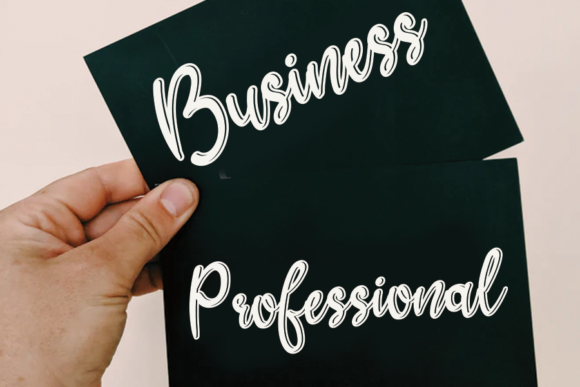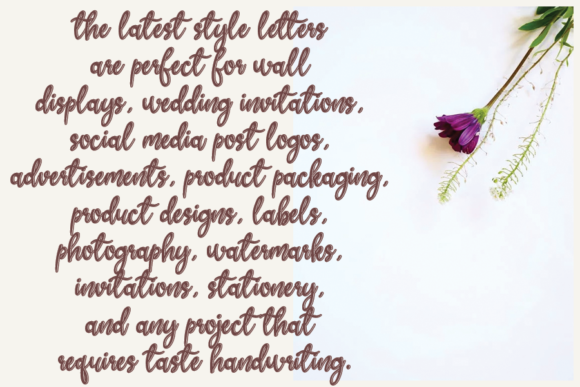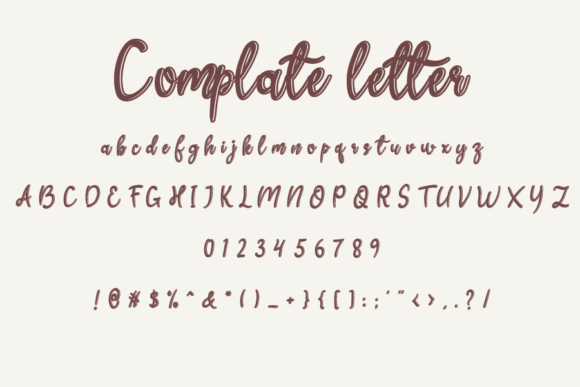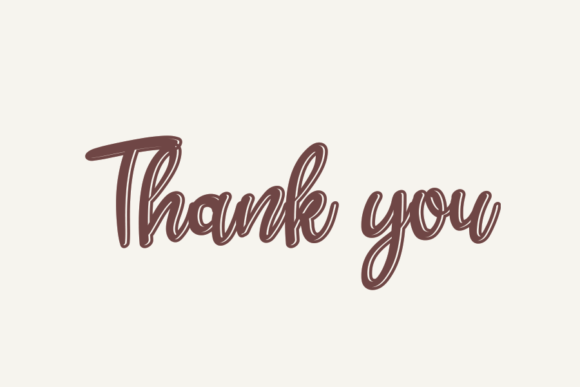
Butter Sweet Font
About Butter Sweet Font
Butter Sweet sounds like a beautiful and flowing handwritten font that exudes elegance and charm. Its distinct and timeless style makes it a versatile choice for a wide range of design projects. Here are some creative ways you can use Butter Sweet to bring a touch of elegance and beauty to your favorite projects:
1. Wedding Invitations: Design exquisite and romantic wedding invitations that capture the essence of love and celebration using Butter Sweet’s elegant touch.
2. Greeting Cards: Create heartfelt and personalized greeting cards for various occasions, conveying warm wishes and emotions with Butter Sweet’s flowing script.
3. Branding and Logo Design: Use Butter Sweet to add a touch of sophistication and grace to your brand identity, ideal for businesses seeking a refined and elegant look.
4. Social Media Graphics: Craft eye-catching and captivating social media graphics, such as quotes, announcements, and promotions, using Butter Sweet to create a classy and elegant impression.
5. Product Packaging: Incorporate Butter Sweet into product packaging design to give your brand a luxurious and sophisticated appeal, perfect for premium and high-end products.
6. Art Prints: Design inspirational art prints with meaningful quotes or elegant illustrations, using Butter Sweet to add an element of elegance to your artwork.
7. Stationery: Create elegant and stylish stationery sets, including notepads, letterheads, and envelopes, featuring Butter Sweet’s flowing script for a timeless touch.
8. Blog Graphics: Use Butter Sweet in blog post graphics, featured images, and banners to add a touch of elegance and sophistication to your blog’s visual identity.
9. Book Covers: Design book covers for romance novels, poetry collections, or self-help books, using Butter Sweet to evoke a sense of grace and beauty.
10. Event Invitations: Craft sophisticated and chic event invitations for special occasions, infusing Butter Sweet’s elegant touch into the design.
11. Quote Artwork: Turn inspiring quotes into elegant artwork using Butter Sweet, creating a sense of timeless beauty and grace.
12. Packaging Labels: Design refined and elegant labels for premium products, incorporating Butter Sweet to add a touch of sophistication.
13. DIY Crafts: Use Butter Sweet for various DIY craft projects, such as custom gift tags, scrapbooking, and handmade gifts, to add an element of elegance and grace.
14. Website Headings: Incorporate Butter Sweet in website headings and banners to create an elegant and welcoming visual experience for visitors.
15. Typography Art: Create custom typography art using Butter Sweet’s flowing script, experimenting with different layouts and compositions for an elegant outcome.
16. Magazine Covers: Design chic and elegant magazine covers using Butter Sweet, making a strong impression on readers with its timeless beauty.
17. Home Decor: Create refined and tasteful home decor items, such as framed quotes or decorative signs, using Butter Sweet to add an elegant touch to your space.
18. Party Invitations: Craft elegant and stylish party invitations for sophisticated events, infusing Butter Sweet’s flowing script for a touch of grace.
19. Handmade Crafts: Personalize handmade crafts and DIY projects with Butter Sweet, enhancing their elegance and sophistication.
20. Personal Projects: Use Butter Sweet for any creative personal projects that require a touch of elegance and beauty.
In conclusion, Butter Sweet’s flowing handwritten style and elegant touch make it a perfect choice for a variety of design projects. Embrace its distinct and timeless beauty to create spectacular and refined designs that leave a lasting impression. Whether you’re designing for weddings, branding, social media, or DIY projects, Butter Sweet’s elegance and charm will elevate your work to a new level of sophistication and beauty.